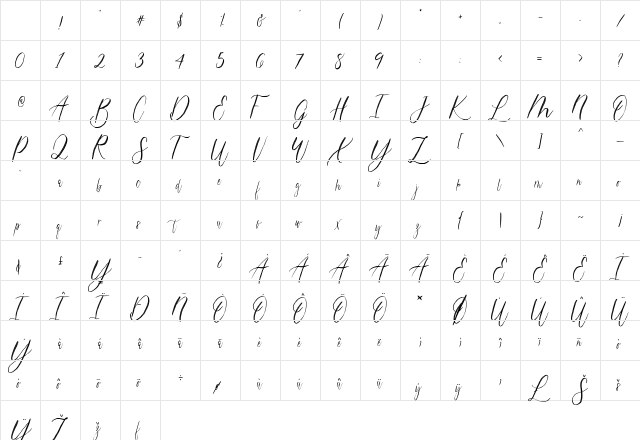
Complete magdalena script Regular glyph index. Displaying only characters natively supported by magdalena script Regular font.
magdalena script flows with the natural rhythm of handwritten lettering, making it ideal for designs that call for warmth and personal expression.
Font Pairing: Combine magdalena script with a simple geometric sans for maximum contrast - the tension between flowing curves and clean structure is a classic typographic pairing.
Pro Tip: Use magdalena script for short runs of text - names, titles, or taglines. Extended body copy in script faces tires the eye quickly.